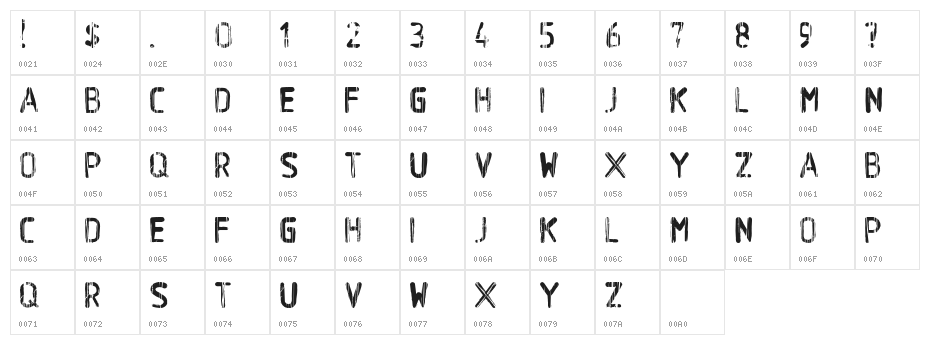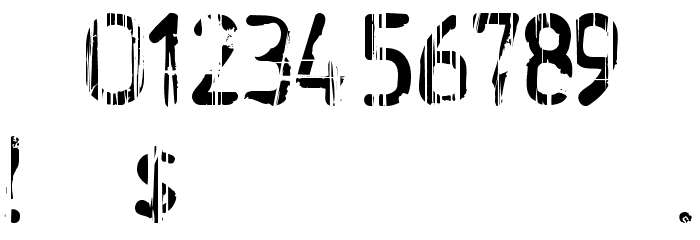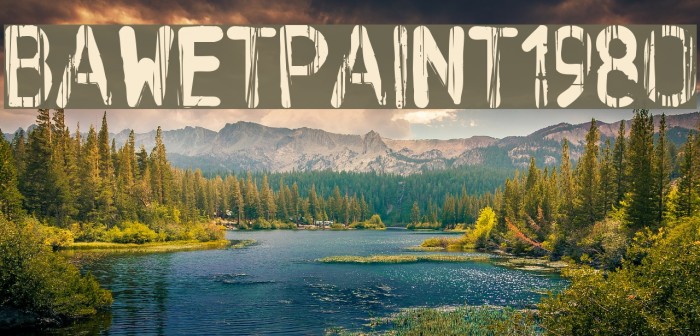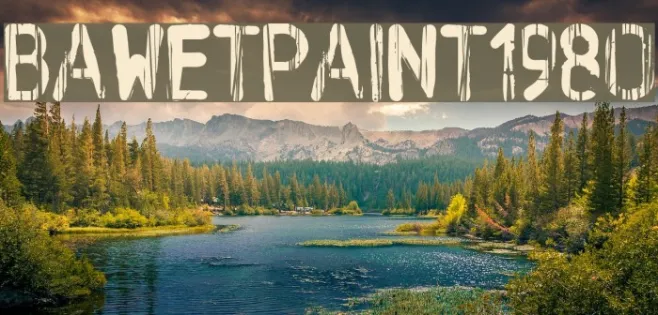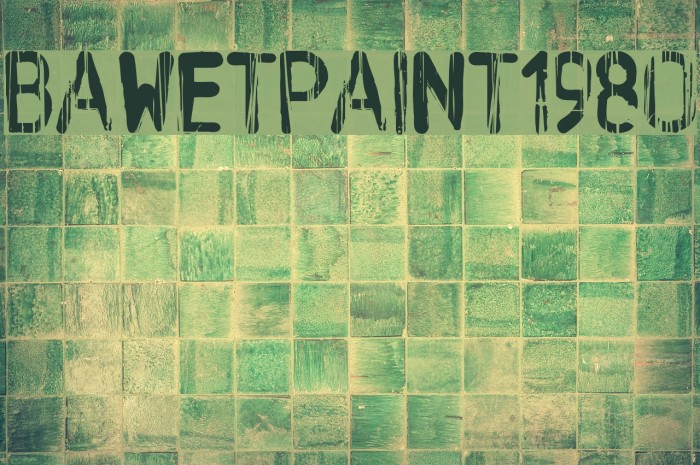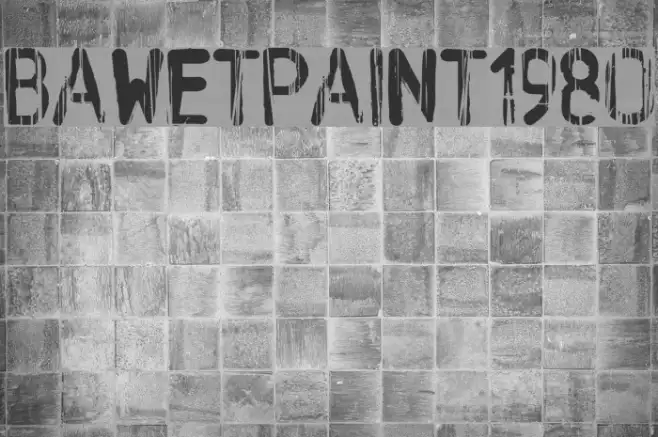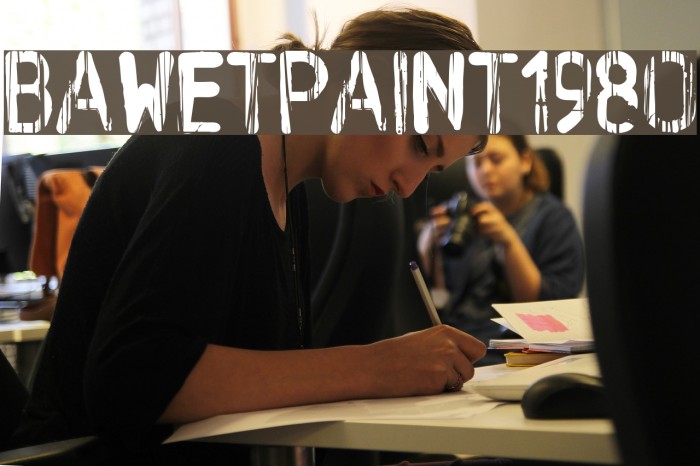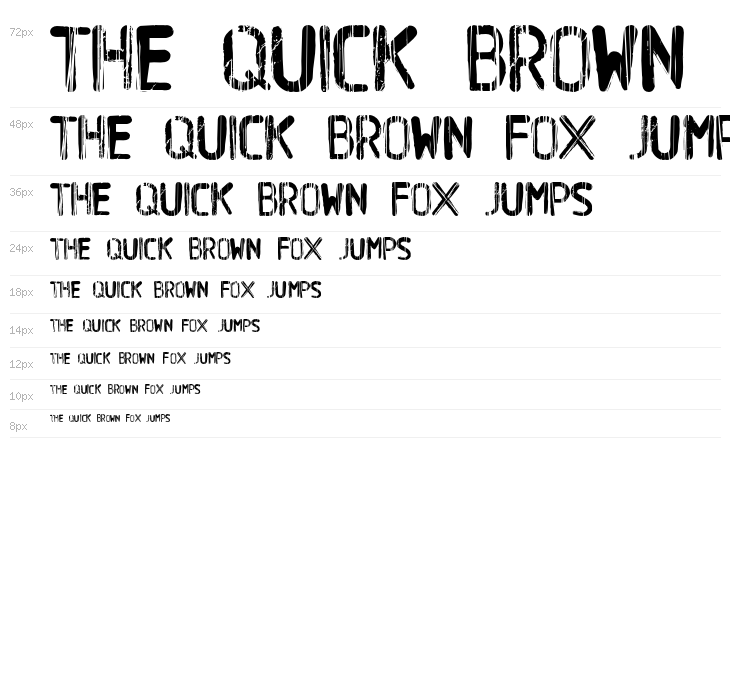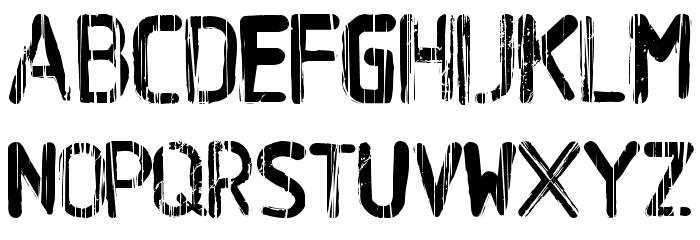
BAWetPaint-1980 Font
BAWetPaint-1980 Description
This font features a distressed, grunge style that mimics the appearance of paint that has been smeared or worn away. The characters are bold and have a rough texture, giving them a rugged and edgy look. The uppercase and lowercase letters maintain a consistent style, with irregular edges and a slightly chaotic feel. Numbers and special characters follow the same aesthetic, ensuring a cohesive look across all glyphs. This font is ideal for projects that require a gritty, urban vibe or a vintage, worn-out appearance.
| Overall Style | Grunge, Urban, Distressed |
| Use Case | Logos, Posters, Headlines |
| Proposed Projects | Album covers, streetwear branding, event posters, graffiti art, and urban-themed designs. |